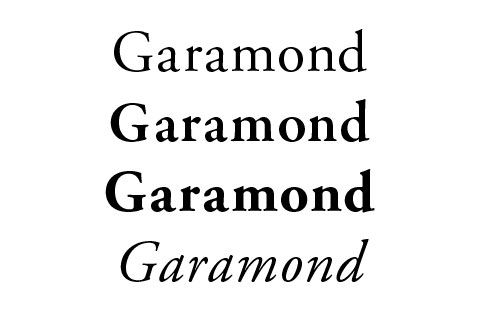
Next in our series of alternatives to classic fonts comes Garamond. Garamond is available from nearly every bigger font vendor as you font geeks know. There is no "the Garamond" and even at the time Claude Garamond lived, the font name Garamond indicated a style of type. But if you like to choose a Garamond I will recommend you the edition of Adobe, designed by Robert Slimbach. And now lets see the candidates.
- Sabon Next (www.linotype.com)
- Athelas (www.type-together.com)
Runners up
- Eason (www.fountain.nu)
- Maiola (www.type-together.com)
- Marat (www.ludwiguebele.de)
- FF Parango (www.fontshop.de)
- FF Reminga (www.fontshop.de)
- MVB Verdigris (www.mvbfonts.com)
- Lexicon (www.teff.nl)
- FF Scala (www.fontshop.de)